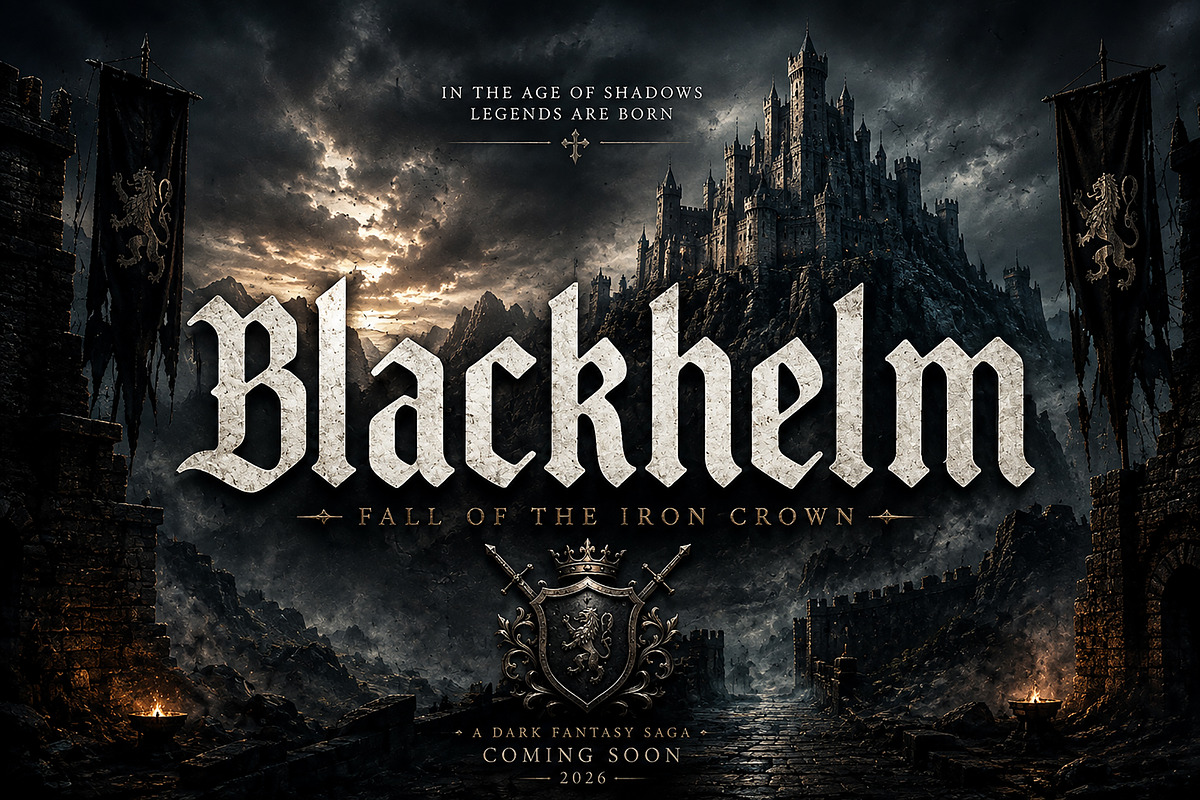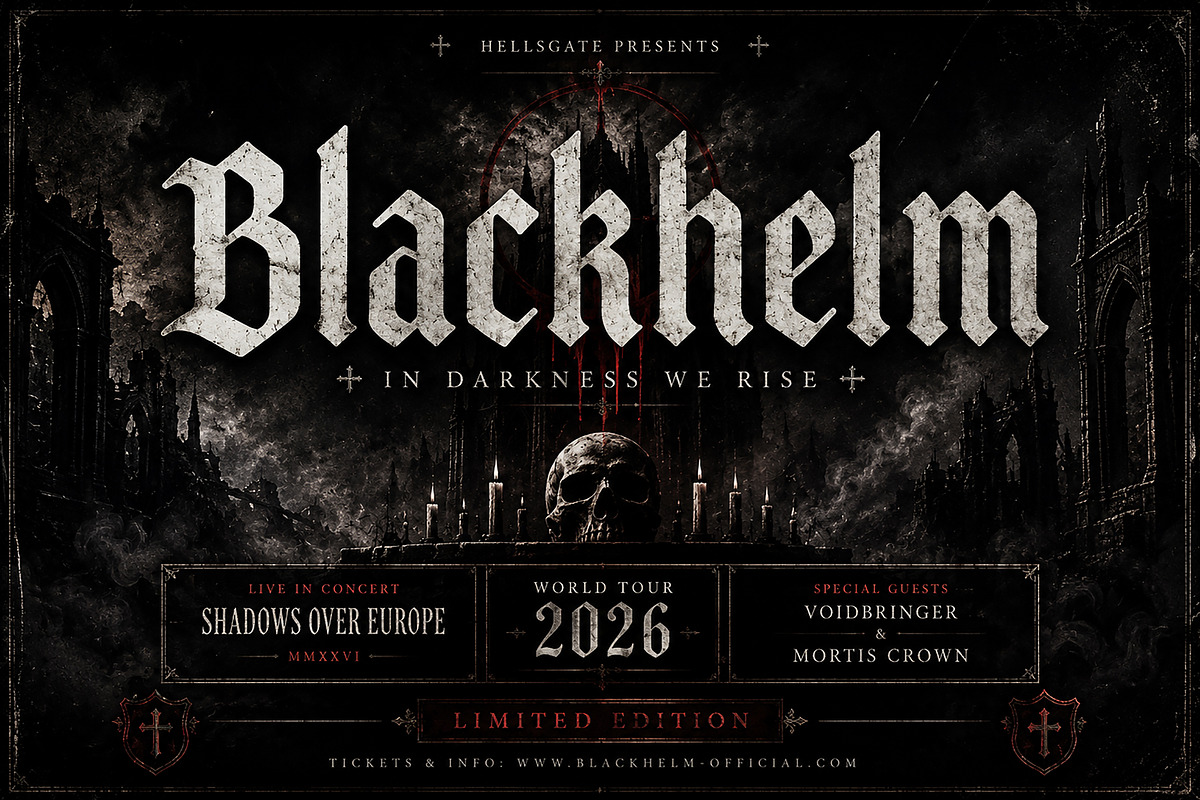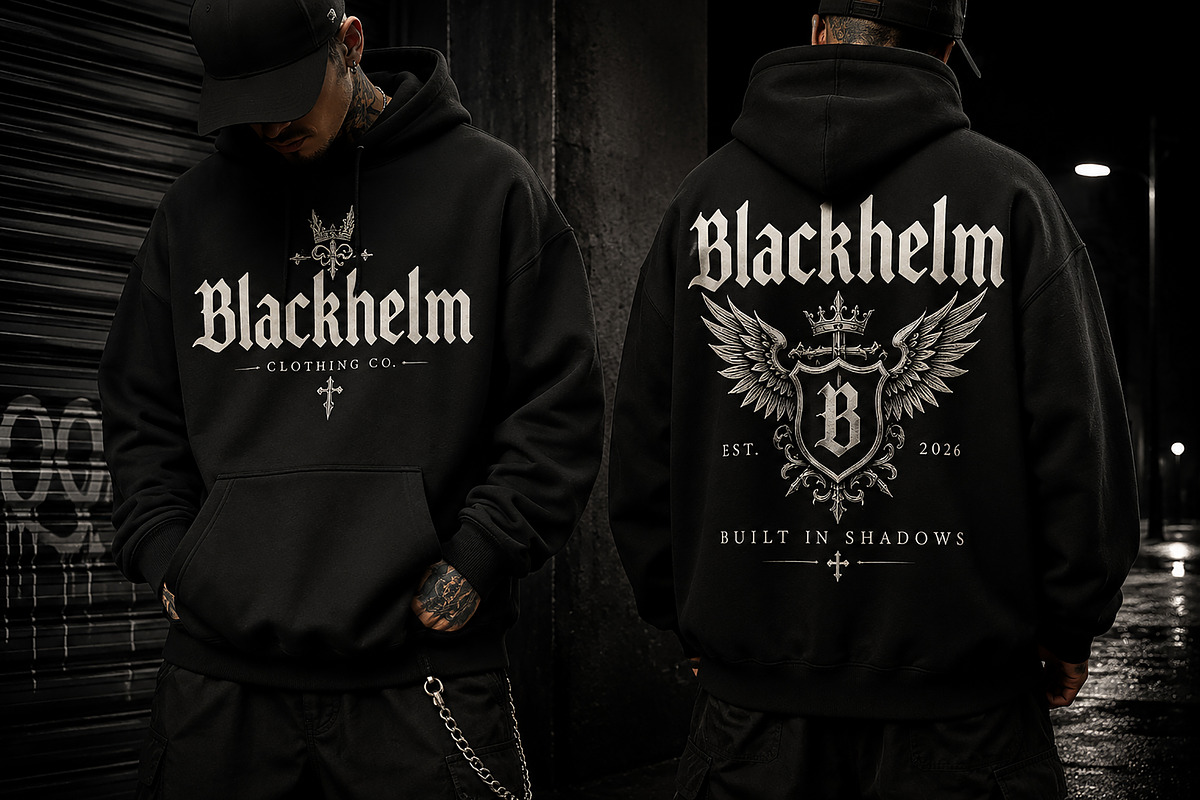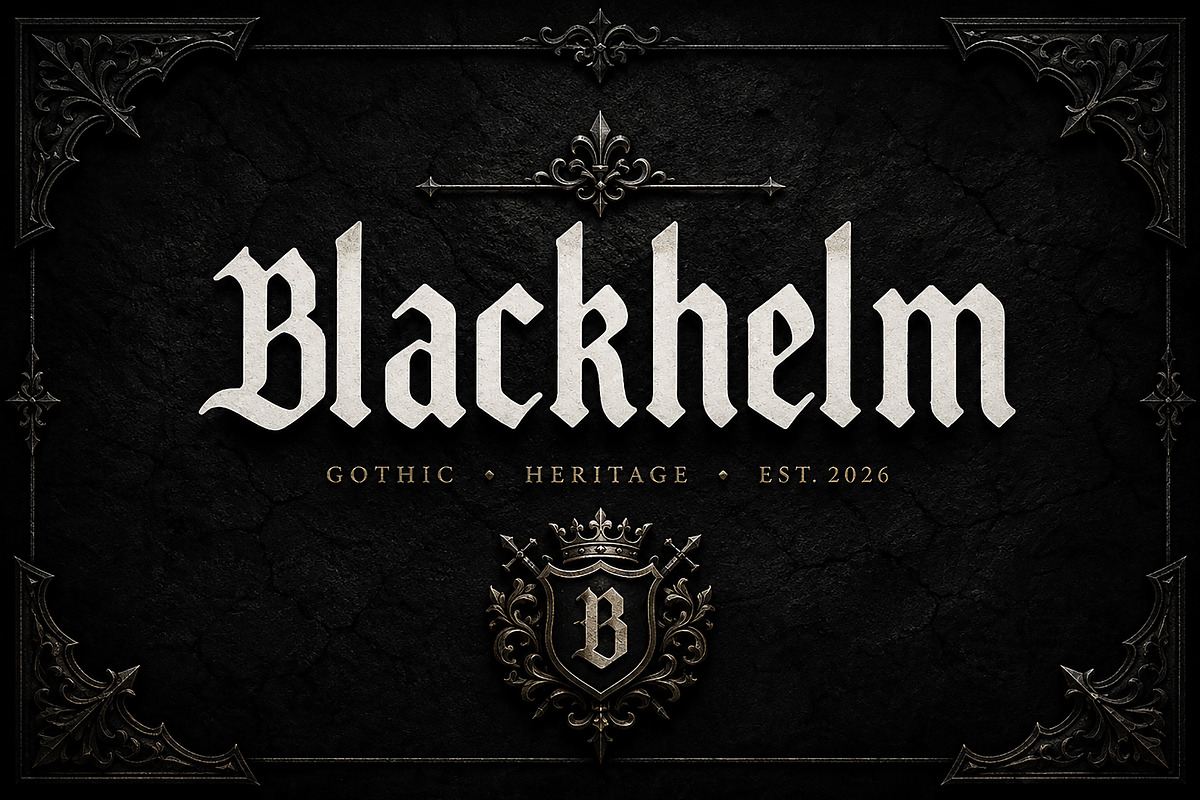
Blackhelm
Blackhelm – Bold Gothic Blackletter Font
Blackhelm is a bold and dramatic Gothic Blackletter display font designed to bring a powerful medieval, dark, and timeless character to your creative projects. With its strong blackletter structure and distinctive sharp details, Blackhelm is perfect for designs that need an intense, mysterious, and premium visual presence.
Whether you're creating a streetwear brand, band logo, album artwork, fantasy poster, gaming title, tattoo design, merchandise, packaging, or Gothic branding, Blackhelm delivers an instantly recognizable aesthetic.
Gothic & Medieval Branding
Logo & Brand Identity
Streetwear & Apparel Designs
Band Logos & Music Artwork
Heavy Metal & Rock Posters
Album Covers
Dark Fantasy Projects
Gaming Titles
Movie & Event Posters
Tattoo Designs
T-Shirts & Merchandise
Labels & Packaging
Editorial & Poster Design
Style: Gothic / Blackletter / Medieval
Type: Display Typeface